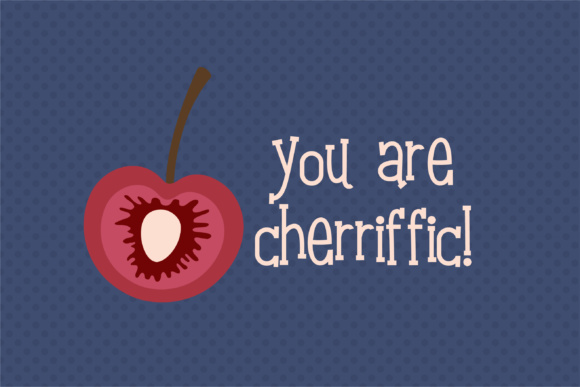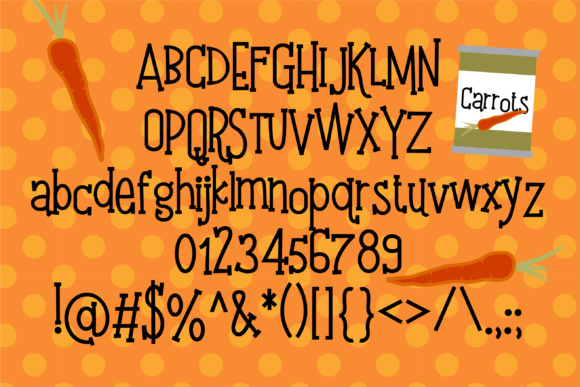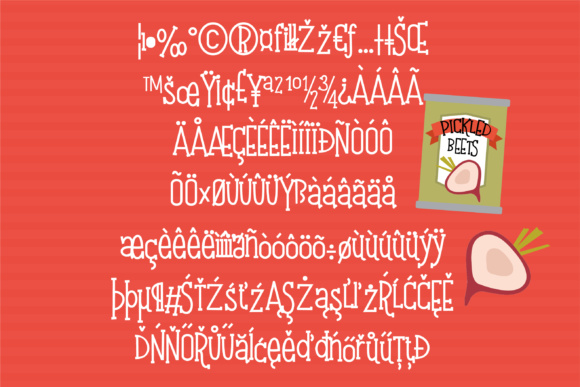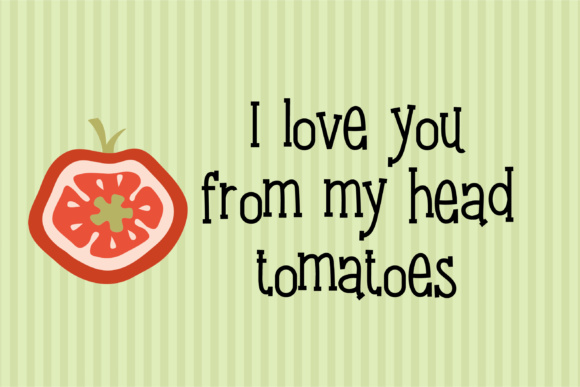
Introduction to Kick the Can Serif Font
Do you ever find yourself stuck on a creative project, desperately searching for the perfect font to bring your vision to life? I know I do. It’s like trying to find the perfect match for a puzzle piece – you know it’s out there, but it’s hard to pinpoint. That’s why I’m excited to share with you a hidden gem of a font that’s been making waves in the design community: Kick the Can Serif Font.
This delightful font boasts a whimsical and fun design, with a slab serif throughout and a bouncy baseline that’s sure to add a playful touch to any project. And the best part? It’s a free download, making it an invaluable resource for designers on a budget. Whether you’re working on a personal project or a client’s design, Kick the Can Serif Font is a high-quality addition to your design arsenal.
With its transparent background and versatile style, Kick the Can Serif Font is a must-have for any designer looking to add a little extra flair to their creative project. So why wait? Download Kick the Can Serif Font today and start bringing your designs to life with a dash of fun and personality!
Key Features of Kick the Can Serif Font
- A modern serif font with a unique and elegant style, suitable for various design applications.
- Perfect for use in brochures, magazines, and other print materials, as well as digital projects like websites and social media graphics.
Honest Review: Kick the Can Serif Font
As a designer, I’m always on the lookout for high-quality design resources to elevate my creative projects. Recently, I had the chance to try out the Kick the Can Serif Font, and I’m excited to share my honest review.
- ✨ The font has a unique, vintage feel that’s perfect for projects that need a touch of nostalgia.
- ✨ The high quality of the font ensures that it looks great on a variety of backgrounds, including transparent backgrounds.
- ⚠️ The font may not be suitable for projects that require a super-serif or sans-serif look.
- ⚠️ The font family is relatively small, so it may not be as versatile as some other serif fonts.
Overall, I’m impressed with the Kick the Can Serif Font. It’s a great option for designers who want to add a unique touch to their creative projects. While it may not be suitable for every project, it’s definitely worth considering for the right design. With its high quality and free download, it’s a great resource to have in your design arsenal.
Kick the Can Serif Font
Tips for Getting the Most Out of Kick the Can Serif Font
For the best results, use the Kick the Can Serif Font in conjunction with other high-quality design resources. Experiment with different font sizes, colors, and layouts to create unique and eye-catching designs.
Common Use Cases for Kick the Can Serif Font
The Kick the Can Serif Font is ideal for a variety of creative projects, including business cards, brochures, and website headers. It’s also perfect for creating invitations, menus, and other printed materials.